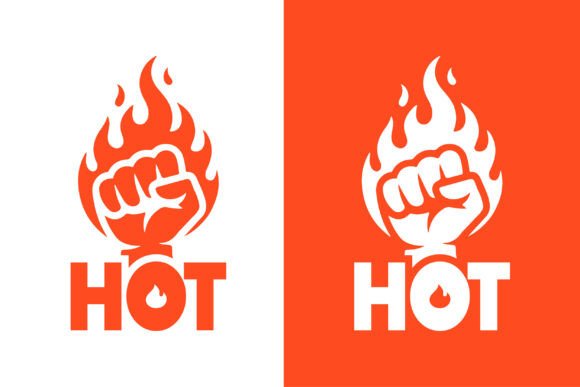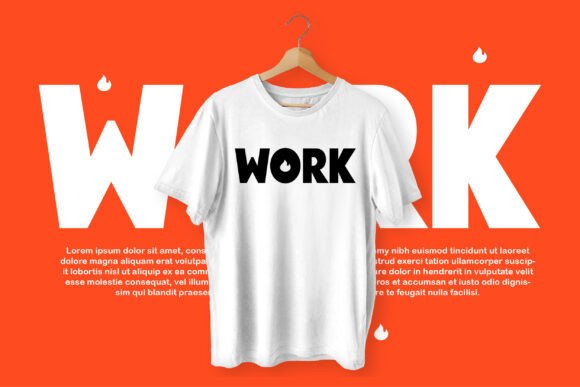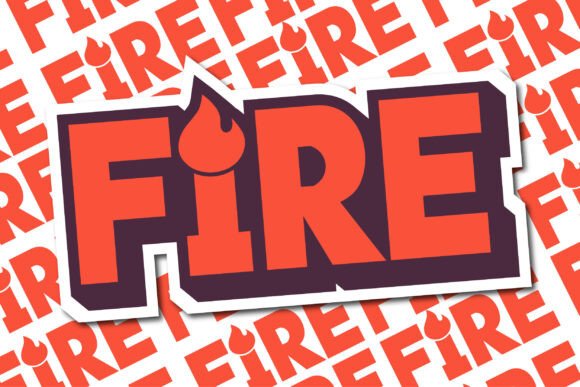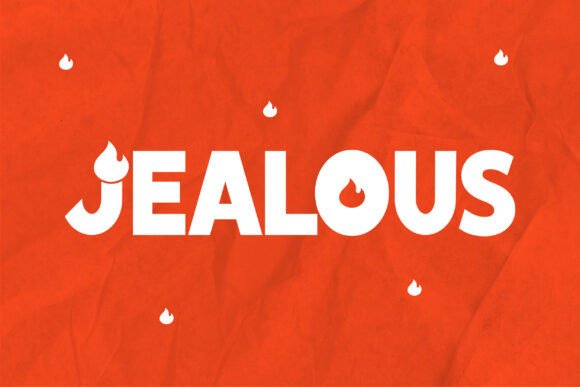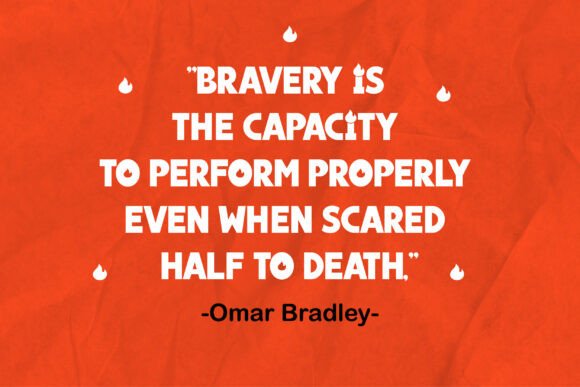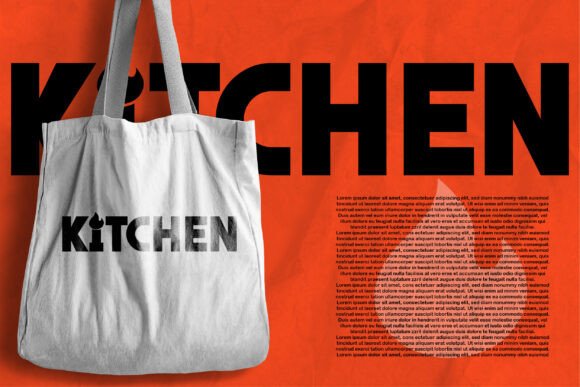
Introducing Fire Boy Font: Adding a Splash of Charm to Your Designs
Have you ever been in the middle of a design project, and suddenly, you just can’t seem to find the right font to bring your vision to life? I recall a recent experience where I was working on a t-shirt design for a client, and no matter how hard I searched, I couldn’t find a font that captured the playful yet quirky vibe they were looking for. That’s when I stumbled upon ‘Fire Boy’, a highly charismatic display font that instantly added a spark of joy to my design.
The Fire Boy Font: A Whimsical Addition to Your Design Arsenal
Fire Boy is designed to inject instant joy into your artistic canvases, making it perfect for projects such as t-shirts, stickers, logos, and more. With its whimsical style and a little quirkiness, this font is sure to redefine creativity with an appeal you can’t help but fall in love with!
An Honest Review: The Good and the Quirks
What I Love About Fire Boy Font
- ✨ Unique and Quirky Style: Fire Boy’s distinctive style sets it apart from more traditional fonts, making it perfect for designers looking to add a bit of personality to their work.
- ✅ Ease of Use: This font is incredibly easy to use, even for those who are new to working with OpenType features and glyphs.
- 💥 Instant Impact: Fire Boy’s charismatic style can instantly elevate your designs, adding a splash of charm that’s sure to capture attention.
While Fire Boy is an amazing font, there are a few minor quirks to be aware of:
- 🤔 Limited Use Cases: Due to its highly stylized nature, Fire Boy may not be suitable for more formal or traditional design projects.
- ⚠️ Glyph Compatibility: Some glyphs and special characters may require additional setup or workarounds to display correctly.
The Backstory Behind Fire Boy Font
Fire Boy was designed with the intention of creating a font that would bring joy and whimsy to design projects. Inspired by the playful and quirky nature of childhood, Fire Boy’s designer aimed to create a font that would evoke a sense of wonder and curiosity.
Q: What type of projects is Fire Boy best suited for?
A: Fire Boy is perfect for creative projects such as t-shirts, stickers, logos, and more.